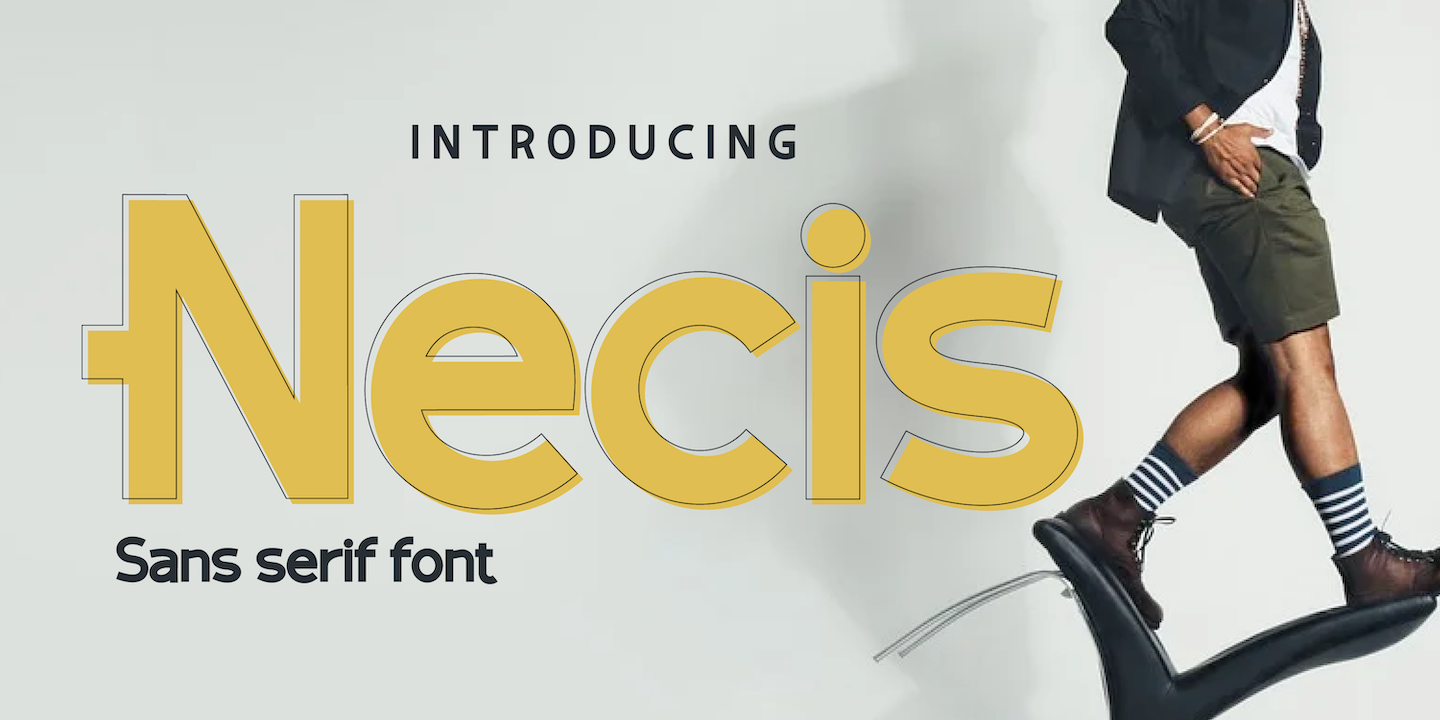
This sleek typeface excels in various contemporary applications including minimalist brand identities, modern architecture firms, luxury product packaging, high-tech interfaces, premium fashion labels, sophisticated editorial designs, innovative startup logos, and cutting-edge digital platforms. The Necis Font embodies refined modernism with its precisely engineered letterforms that balance geometric clarity with subtle organic nuances for maximum visual sophistication.
What makes this font truly exciting is its remarkable ability to convey both technical precision and human warmth through meticulously crafted characters that feel simultaneously calculated and approachable. The expertly designed letters feature optimized proportions, refined curves, and consistent rhythm that create an atmosphere of effortless elegance. Its distinctive personality combines mathematical precision with aesthetic sensitivity, creating typography that speaks to discerning audiences who appreciate understated excellence.
The Necis Font family includes thoughtfully curated variations: Thin, Light, Regular, Medium, Semi Bold, Bold, and Black weights, each with matching italics. Every family member maintains the signature refined character while providing designers with comprehensive tools for creating sophisticated typographic systems and memorable brand experiences.